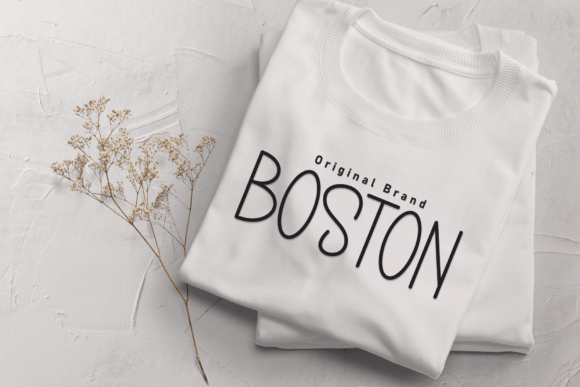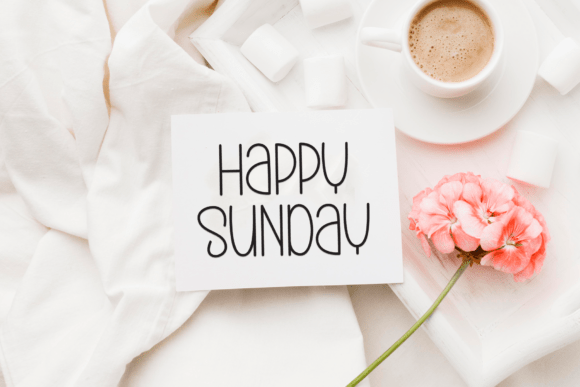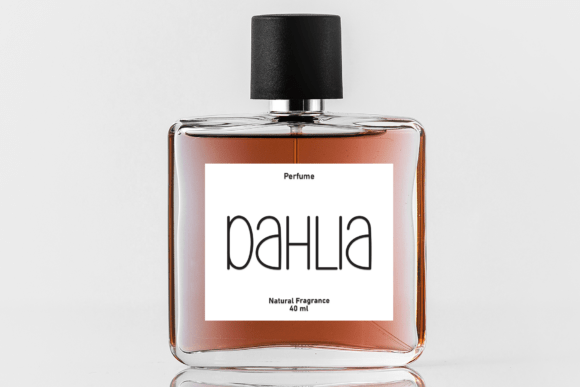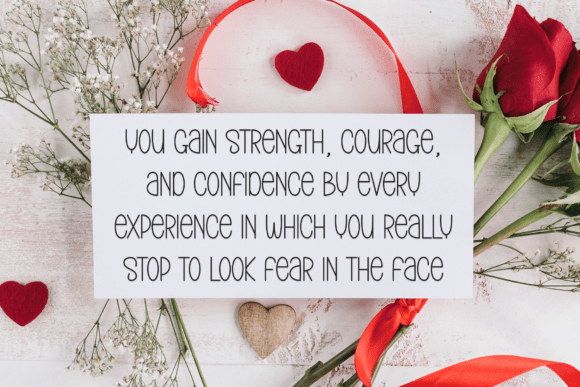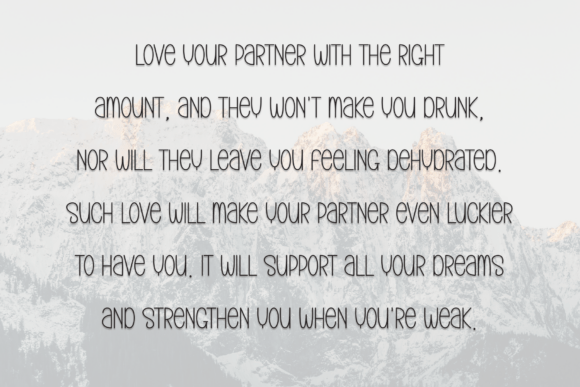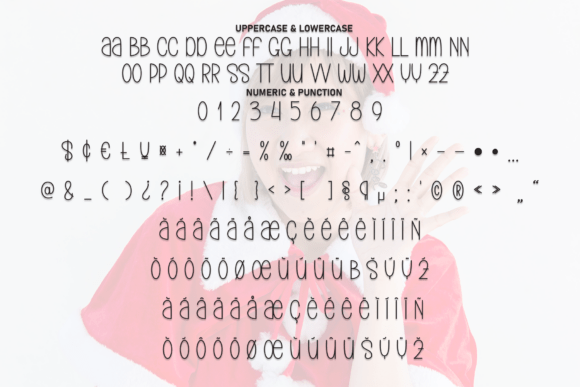
The Magic of Handwritten Typography: Unveiling Hello Santa Font
Have you ever found yourself scribbling down a heartfelt message in your favorite journal, only to be swept away by the whimsical charm of your own handwriting? That’s the essence of Hello Santa Font – a charismatic handwritten display font that captures the warmth and personality of a handwritten note. Designed to add a touch of whimsy and playfulness to your designs, this font is perfect for wedding invitations, greeting cards, and any project that calls for a dash of cheerful dynamism.
As a designer, you’re always on the lookout for the perfect font to bring your vision to life. Hello Santa Font is a valuable addition to your toolkit, offering an unmistakable personal touch that sets your designs apart from the rest. Its genuine enchantment is sure to leave a lasting impression on your audience, making it a go-to choice for any project that requires a touch of magic.
Hello Santa Font Key Features
- Font Style: A playful, handwritten font designed to evoke the spirit of the holiday season.
- Unique Characteristics: The font features a unique blend of whimsy and elegance, making it perfect for creating eye-catching holiday graphics, posters, and advertisements.
- Character Set: Includes a comprehensive set of characters, including uppercase and lowercase letters, numbers, and punctuation marks, as well as special holiday-themed characters.
Hello Santa Font Review
As a designer, I was excited to try out the Hello Santa Font for a festive project. Here’s my honest review:
- The font’s playful, whimsical feel is perfect for holiday-themed designs.
- The range of weights and styles offers flexibility for various design applications.
- The font’s clear, legible structure makes it suitable for body text and headings.
- The font’s fun, quirky personality adds a nice touch to designs.
- The font’s design may not be suitable for more formal or professional projects.
- The font’s bold and italic styles may not be as crisp as other fonts in the same category.
- The font’s range of language support may be limited compared to other fonts.
Overall, I found the Hello Santa Font to be a delightful addition to my design toolkit. While it may have some limitations, its playful personality and range of styles make it a great choice for festive projects. I would recommend it to designers looking to add a touch of whimsy to their designs.
Use the Hello Santa Font to add a festive touch to your holiday designs.
Alternatives to Hello Santa Font
Great Vibes Font is a beautiful, handwritten script font that works well for creative and inspirational quotes, titles, and headings. It’s perfect for adding a touch of elegance and sophistication to your designs. When to use: Great Vibes Font is ideal for wedding invitations, quotes, and any project that requires a romantic and whimsical feel.
Comparison: Great Vibes Font has a more elegant and refined look compared to Hello Santa Font, which is more playful and casual. Great Vibes Font is also more versatile and can be used for a wider range of projects.
What font sizes and styles are included in the Hello Santa Font?
The Hello Santa Font includes a range of font sizes and styles, including Regular, Bold, Italic, and Bold Italic. The font sizes range from 8pt to 72pt, allowing you to use the font in a variety of design applications, from small text labels to large headings.